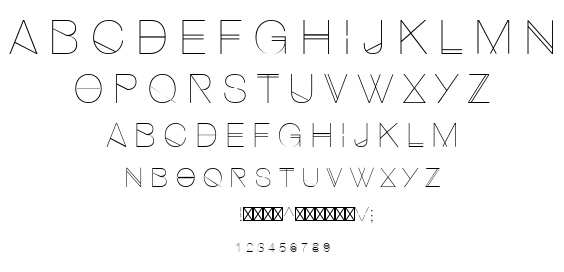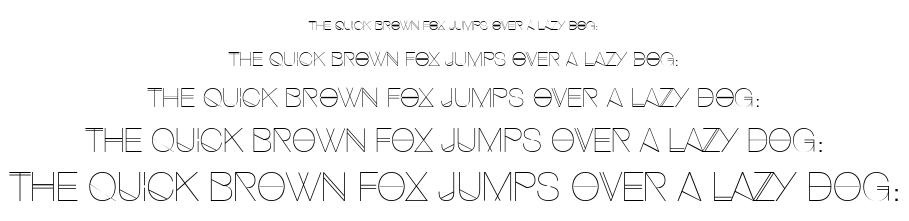
Hipstelvetica is an experimental display font family. It was created as a personal project Inspired by the legendary helvetica design. It’s my first iteration into typography design and it’s completely free for both personal and commercial use.